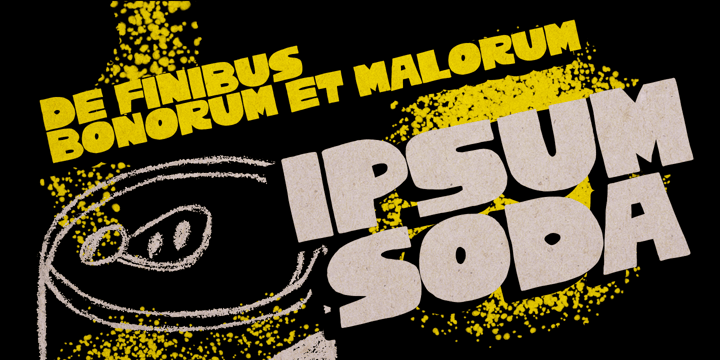
Cachalote
Cachalote by PintassilgoPrints
Cachalote Font Family was designed by Erica Jung, Ricardo Marcin and published by PintassilgoPrints. Cachalote contains 1 styles. More about this family
About Cachalote Font Family
Positively bold, Cachalote was drawn by subtracting negative space. The resulting glyphs show unexpected, original forms, packed in an unicase font. Suited for impact. For the coolest looks. Positively.
Designers: Erica Jung, Ricardo Marcin
Publisher: PintassilgoPrints
Foundry: PintassilgoPrints